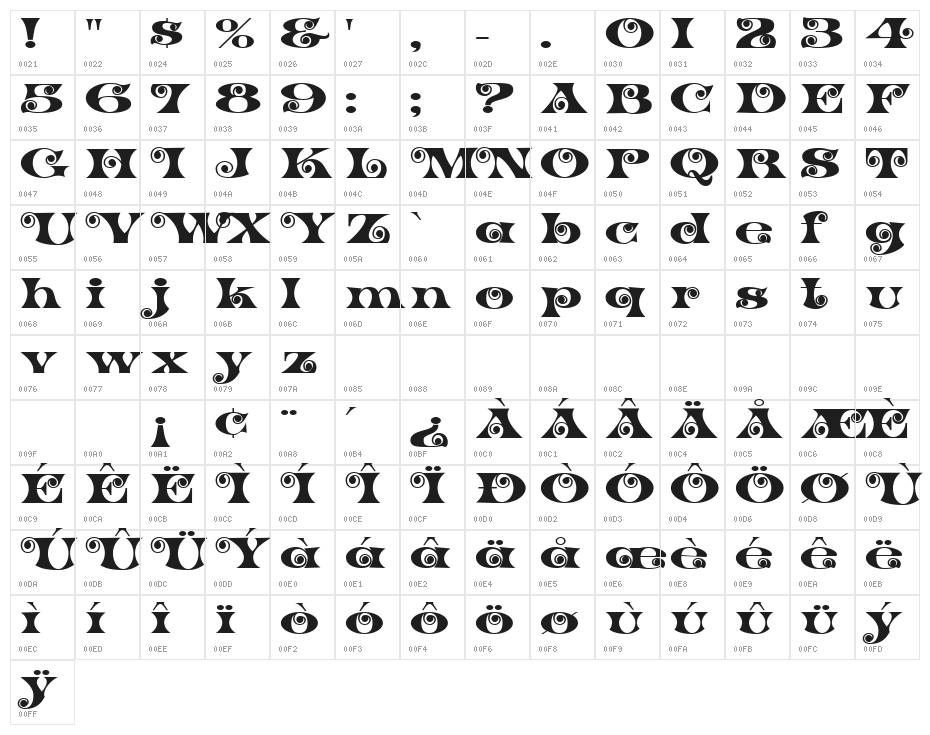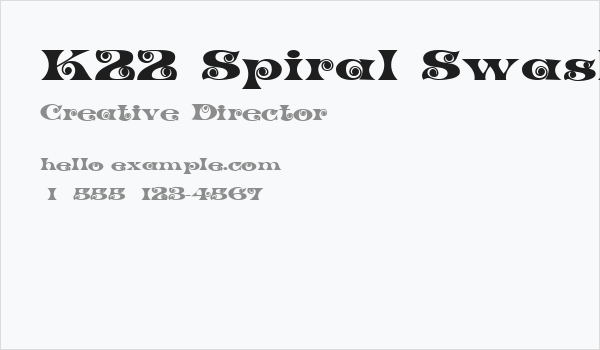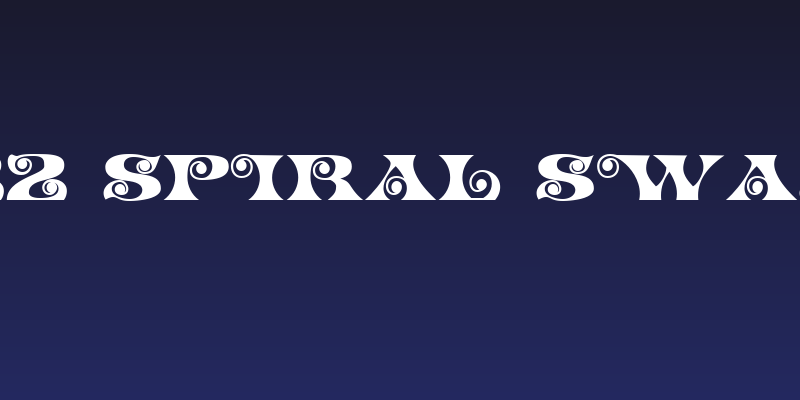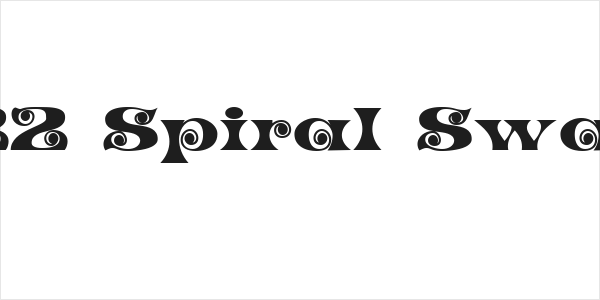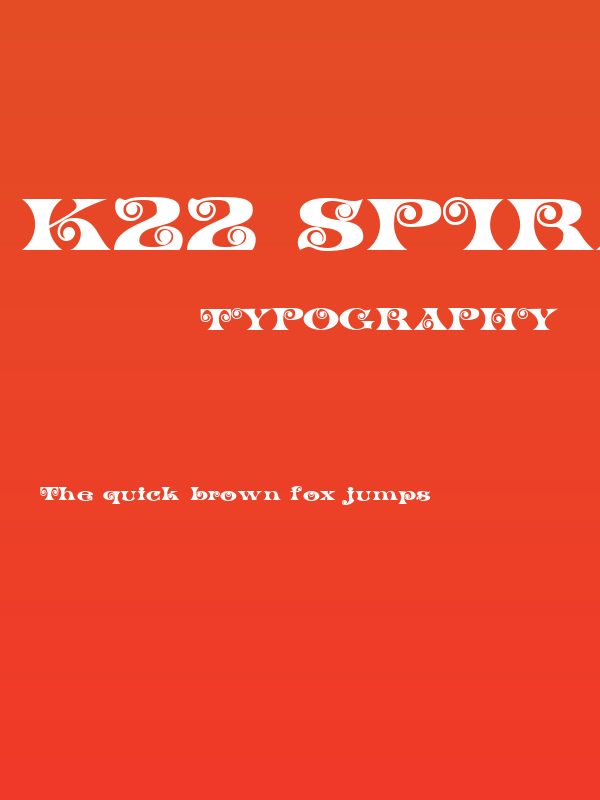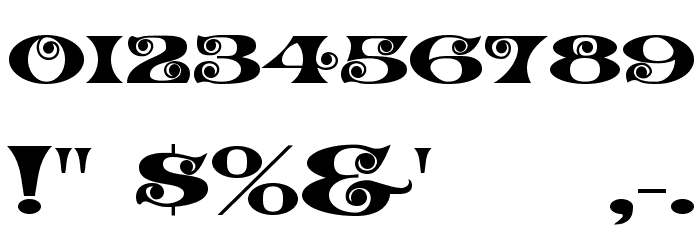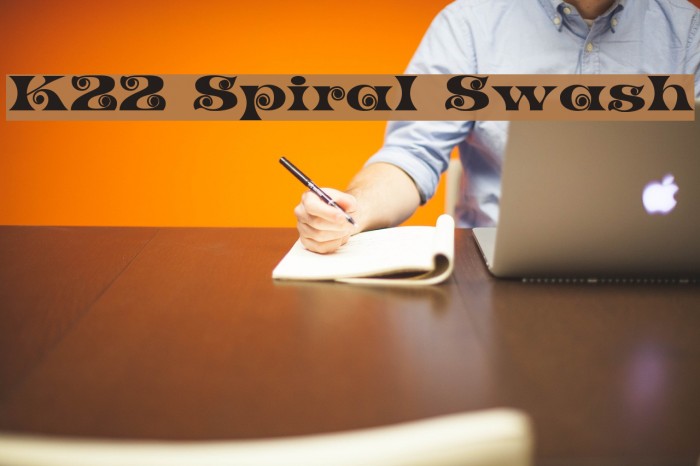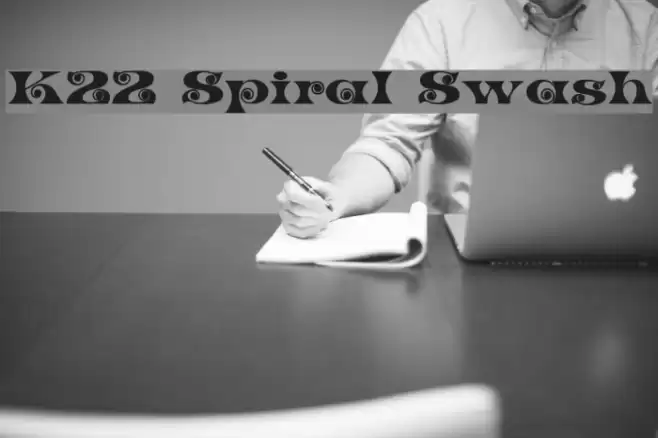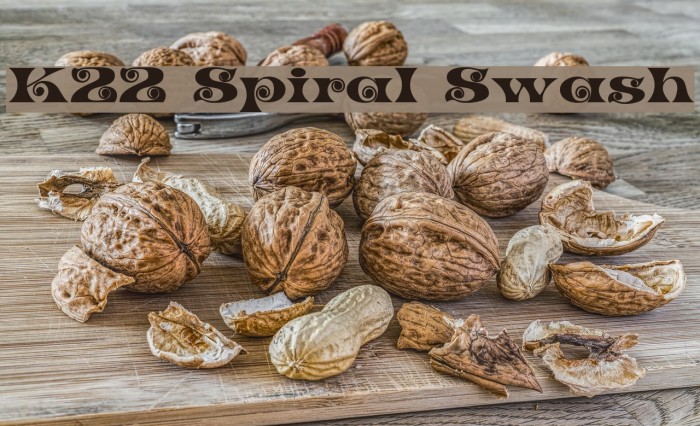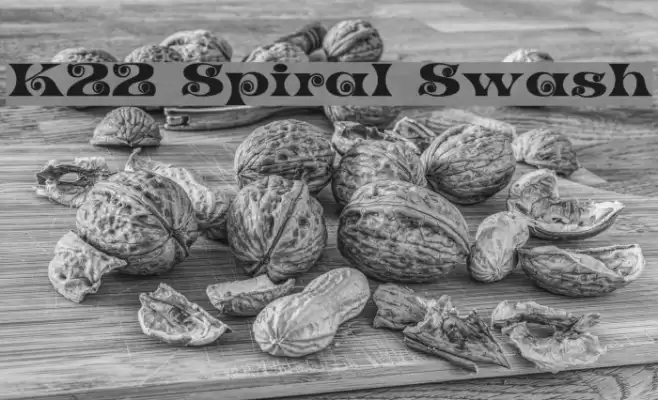
K22 Spiral Swash Font
K22 Spiral Swash Description
This font features a unique and decorative style with intricate spiral swashes incorporated into each character. The uppercase and lowercase letters are bold and eye-catching, with a playful yet elegant design. The numbers and special characters maintain the same ornate quality, making them suitable for creative and artistic projects. The font's distinctiveness lies in its swirling embellishments, which add a whimsical touch to any text. Its bold strokes and high contrast between thick and thin lines make it stand out, while the overall design remains cohesive and visually appealing.
| Use Case | Headlines, Logos, Invitations |
| Proposed Projects | Ideal for invitations, posters, logos, and any project requiring a whimsical and artistic touch. |